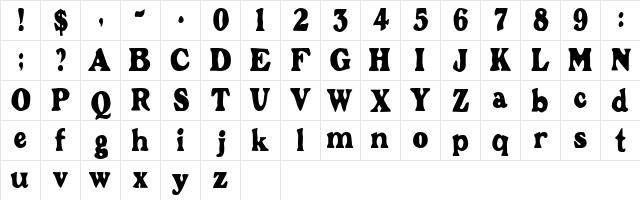
GrantCondensed Regular
Design Context for GrantCondensed Typeface
GrantCondensed takes a measured approach to typography — its balanced proportions and neutral character make it a reliable workhorse for both digital and print work. Its narrow stance lets it pack a punch even in space-constrained designs.